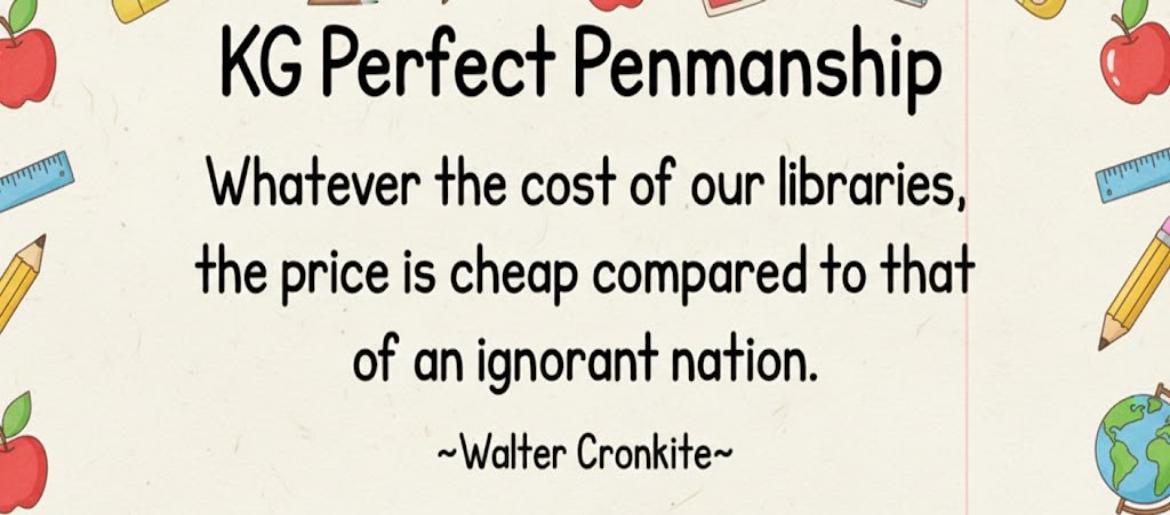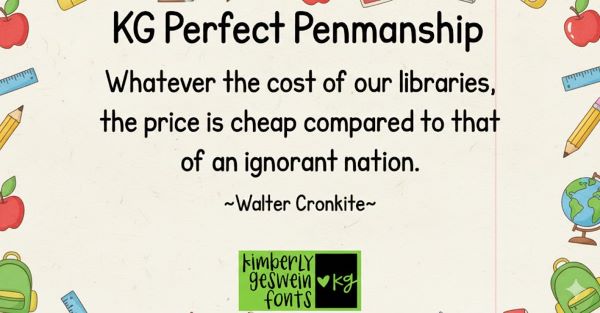
KG Perfect Penmanship
KG Perfect Penmanship Font
KG Perfect Penmanship Font is a handwritten-style typeface designed especially for teachers and parents. Educators value its clear, standard letter formation, making it ideal for worksheets, classroom materials, and early learning resources used in schools, homeschooling, and everyday handwriting practice.
➤ Font Name: KG Perfect Penmanship
➤ Designer: Kimberly Geswein
➤ Style: Script
KG Perfect Penmanship Font